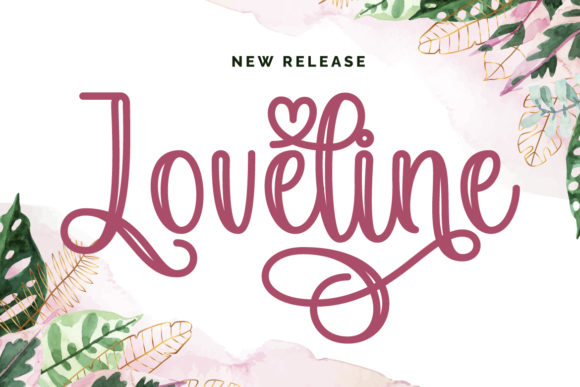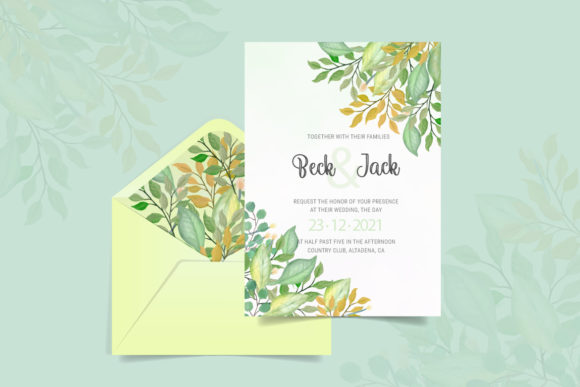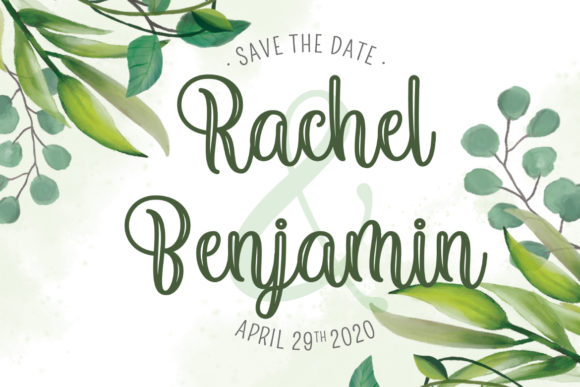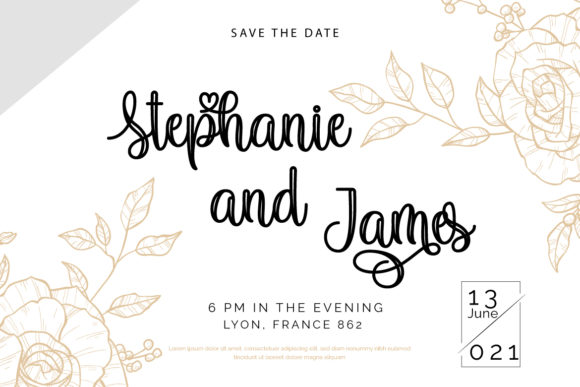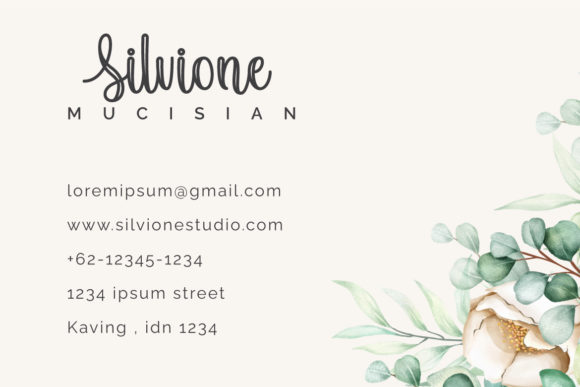
About Loveline Font
Loveline is a beautiful and elegant script font. Fall in love with its authentic feel and use it to create gorgeous wedding invitations, beautiful stationary art, eye-catching social media posts, and cute greeting cards. This font is PUA encoded which means you can access all of the cute glyphs and swashes with ease!